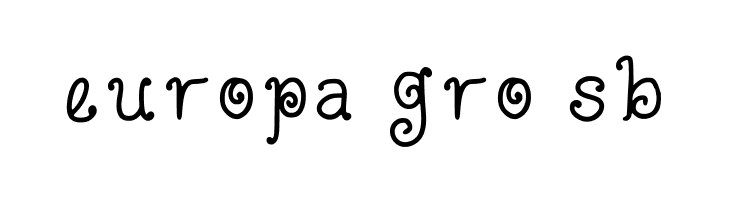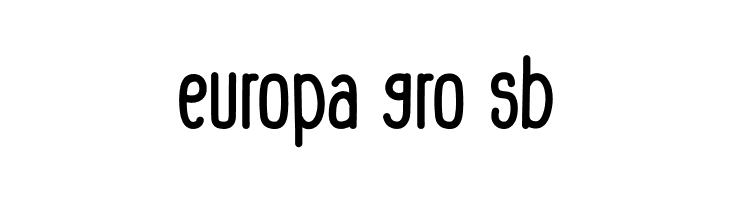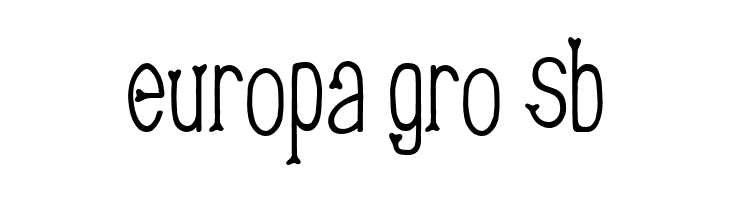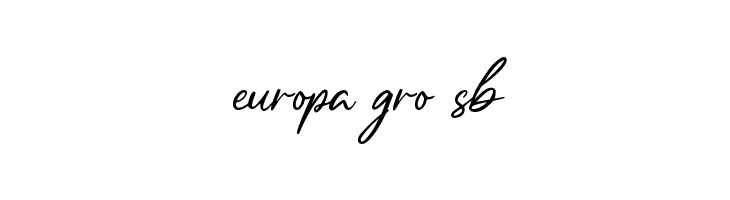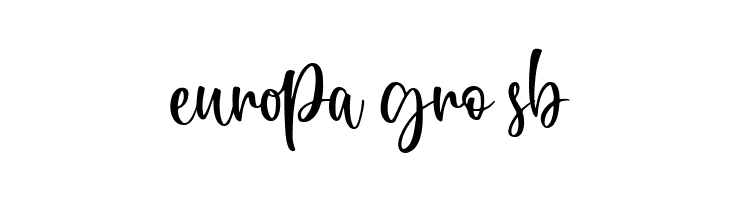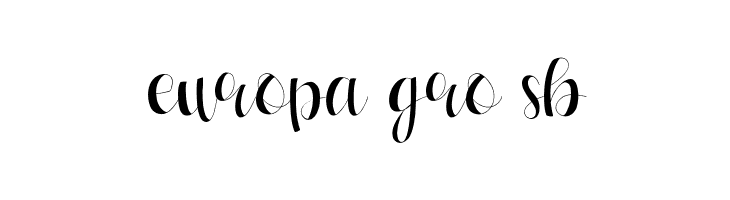
• Anayu - Personal Use
A playful, whimsical font with tall, narrow letters and a modern artistic flair.
• Hollies Magic Regular
A playful, hand-drawn style font with curly, rounded edges.
• Kawit Free Italic
A dynamic, flowing script font with elegant, cursive letterforms and a consistent italic slant.
• Dinkebilo Bold
A bold, playful font with rounded edges and a slightly condensed form.
• Bone Lock Regular
A playful, bone-like font with a hand-drawn appearance.
• Neug Asia Script Demo
A graceful, cursive script font with elegant, flowing lines.
• AnotherRegular
A playful, rounded font with consistent stroke width and a modern, approachable style.
• Happy People Regular
A playful and whimsical script font with decorative loops and swirls.
• Beauty Florist Regular
A decorative and bold font with playful swirls and flourishes.
• Lasmini Yahut
An elegant, cursive font with flowing, ornate characters.